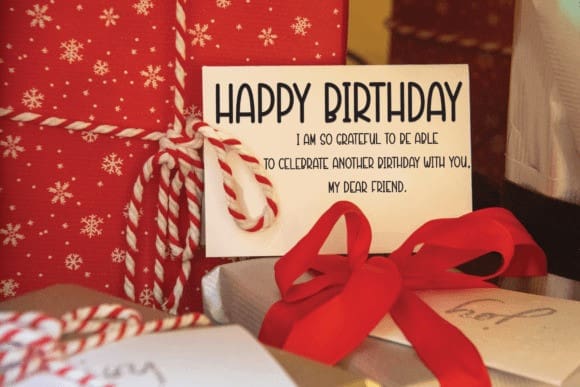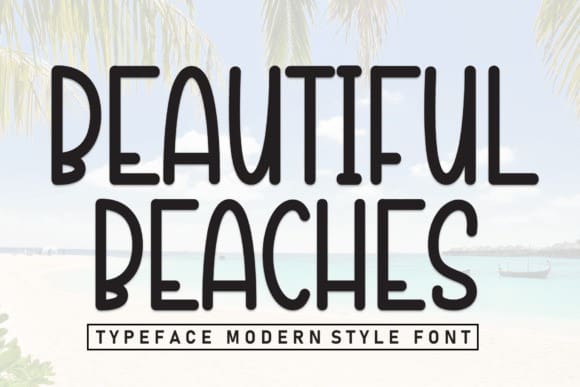
Beautiful Beaches Font
Beautiful Beaches Font is a sweet and friendly handwritten serif font. Cute and fun, it is ideal for writing wedding invitations, cards, or any other design that might need a fun touch!